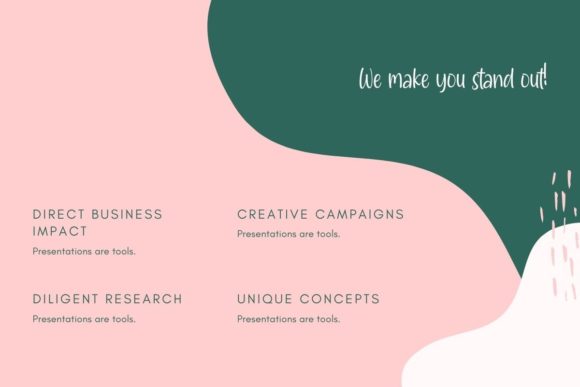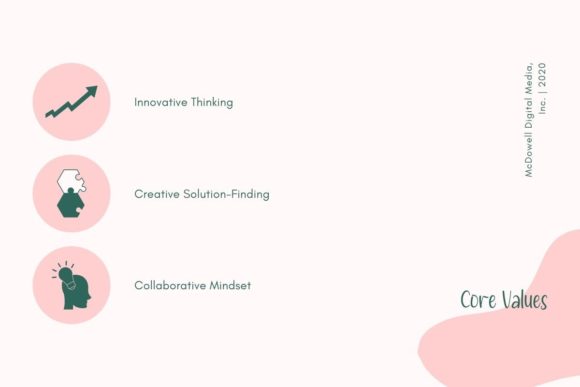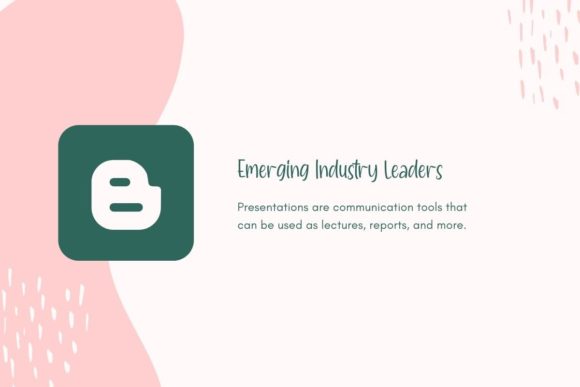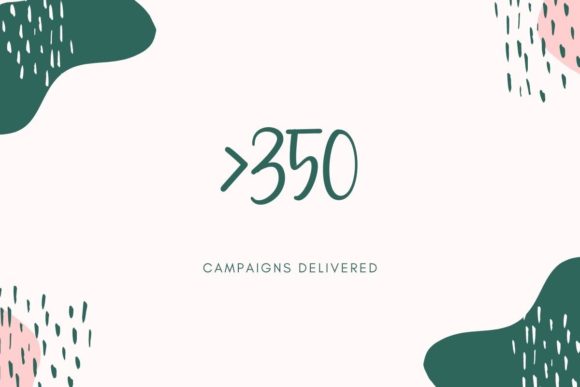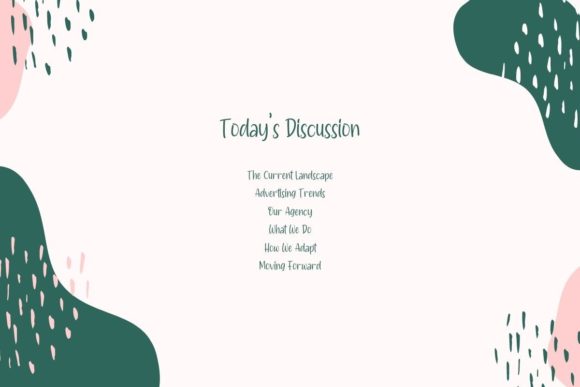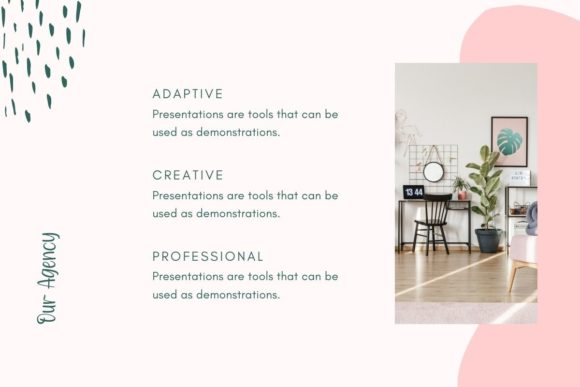
Bemoly Cute Font: The Perfect Addition to Your Design Arsenal
In the world of typography, fonts play a crucial role in conveying the tone and personality of a design. For designers and crafters looking to add a touch of sweetness and delicacy to their projects, Bemoly Cute Font is an excellent choice. This dainty and delicate handwritten font is sure to brighten up your designs and leave a lasting impression on your audience.
The Charm of Bemoly Cute Font
Bemoly Cute is a beautifully crafted font that exudes a sense of innocence and playfulness. Its sweet and full of life style makes it perfect for designs that require a touch of whimsy and charm. Whether you’re working on a project for a children’s brand, a wedding invitation, or a social media graphic, Bemoly Cute Font is sure to add a dash of personality and flair.
Key Features of Bemoly Cute Font
- Handwritten style: Bemoly Cute Font boasts a beautiful, handwritten style that gives it a personal and organic feel.
- Dainty and delicate: The font’s dainty and delicate nature makes it perfect for designs that require a touch of subtlety and elegance.
- Sweet and playful: Bemoly Cute Font is full of life and energy, making it ideal for designs that need to convey a sense of fun and playfulness.
- Highly versatile: This font can be used for a wide range of design projects, from digital graphics to print materials.
Use Cases for Bemoly Cute Font
Bemoly Cute Font is a versatile font that can be used in a variety of design projects, including:
- Children’s branding: The font’s playful and whimsical nature makes it perfect for children’s brands, such as toys, games, and educational materials.
- Wedding invitations: Bemoly Cute Font’s delicate and elegant style makes it a great choice for wedding invitations, save-the-date cards, and other wedding-related designs.
- Social media graphics: The font’s playful and eye-catching nature makes it ideal for social media graphics, such as Instagram posts, Facebook graphics, and Twitter headers.
- Crafting and DIY projects: Bemoly Cute Font is also perfect for crafters and DIY enthusiasts who want to add a personal touch to their projects, such as handmade cards, scrapbooking, and journaling.
Tips for Using Bemoly Cute Font
To get the most out of Bemoly Cute Font, here are a few tips to keep in mind:
- Use it in combination with other fonts: Bemoly Cute Font pairs well with other fonts, such as sans-serif fonts or script fonts. Experiment with different combinations to find the perfect look for your design.
- Adjust the font size and color: To add emphasis or create visual interest, adjust the font size and color to create a hierarchy of text.
- Use it for headings and titles: Bemoly Cute Font is perfect for headings and titles, where its playful and eye-catching nature can shine.
In conclusion, Bemoly Cute Font is a beautiful and versatile font that is sure to add a touch of sweetness and charm to your designs. Its dainty and delicate nature, combined with its playful and eye-catching style, makes it perfect for a wide range of design projects. Whether you’re a designer, crafter, or DIY enthusiast, Bemoly Cute Font is a great addition to your design arsenal.